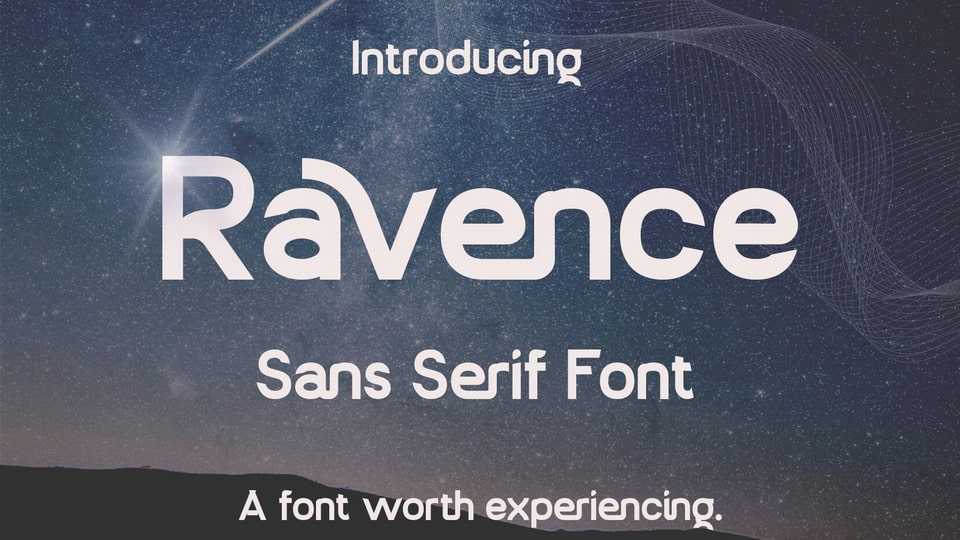
Download Ravence font, a modern sans serif typeface that blends clean geometry with subtle futuristic details, designed to be both minimal and distinctive.
Designer: NDNL Studio